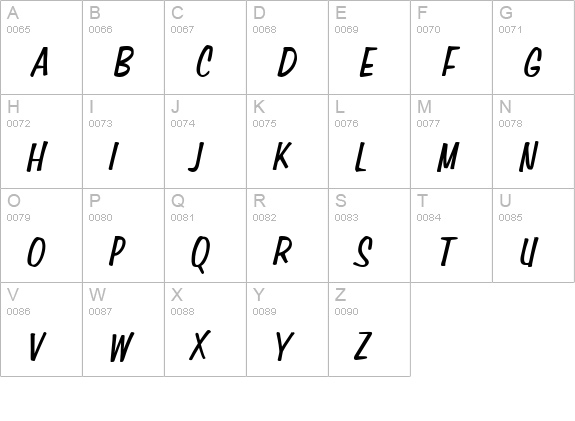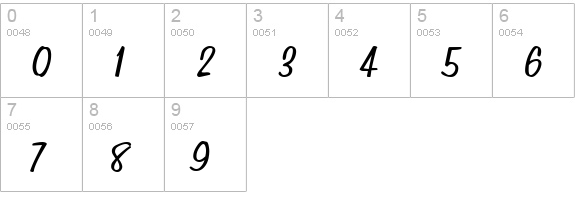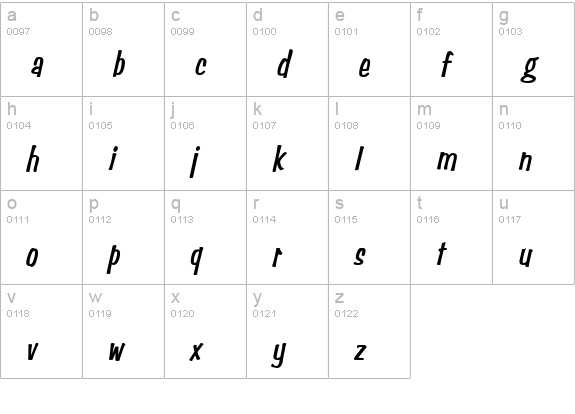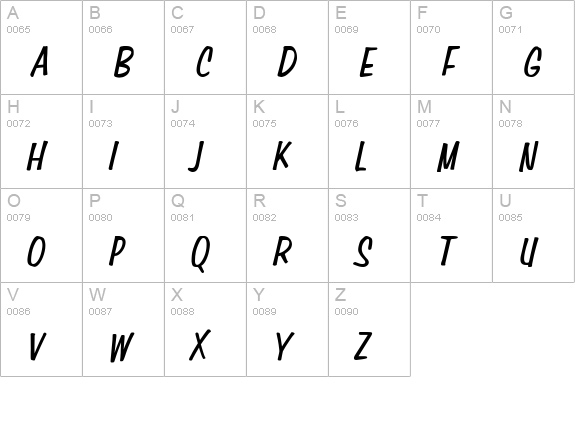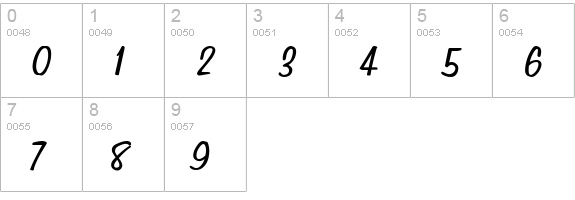
Simpson Condensed BoldItalic is a distinctive, condensed-width variant in the Simpson typeface family \xE2\x80\x94 well suited to design and typography projects.
Introducing Simpson Condensed BoldItalic font, a masterpiece that effortlessly combines elegance and boldness. This captivating typeface is the perfect choice for those seeking to make a statement with their designs. With its sleek and condensed form, Simpson Condensed BoldItalic exudes a sense of modernity and sophistication. The unique blend of bold strokes and subtle italicized curves gives this font a dynamic and eye-catching appearance. It effortlessly captures attention and adds a touch of style to any project, whether it be logos, headlines, posters, or branding materials. Simpson Condensed BoldItalic is versatile enough to be used in both digital and print media, making it an invaluable asset for graphic designers, advertisers, and creatives alike. But what sets Simpson Condensed BoldItalic apart is not just its remarkable aesthetics; it is also the fact that it is freely available to download at FontsMarket.com. This means that you can easily access this exceptional font and use it in your projects without any hassle or cost. FontsMarket.com provides a user-friendly platform where you can effortlessly browse and download a vast collection of high-quality fonts, including Simpson Condensed BoldItalic. So, why settle for ordinary when you can elevate your designs with the captivating allure of Simpson Condensed BoldItalic font? Download it for free at FontsMarket.com today and embark on a creative journey that will leave a lasting impression. Let this font be the catalyst for your imagination to soar and your designs to shine.